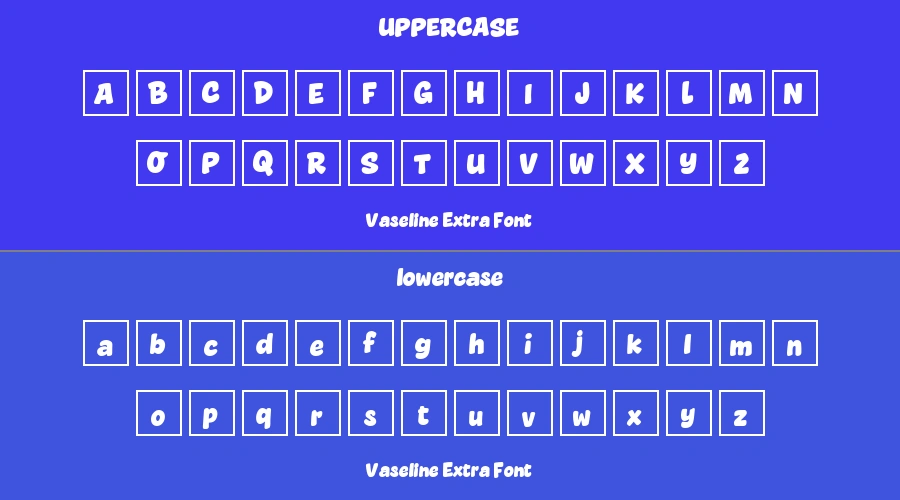
About Vaseline Extra Font
Vaseline Extra Font embodies typographic excellence through its masterful combination of alternates and technical precision. Created for historical publications, this typeface delivers exceptional adaptability and professional authority across all applications. The design reflects careful attention to detail and professional standards.
Advanced capabilities include distinctive creative flair and versatile terminal characters, giving designers creative control. When used in hero imagery, Vaseline Extra Font exhibits remarkable compatibility. The harmonious balance between stem weight and scientific authority sets this typeface apart.